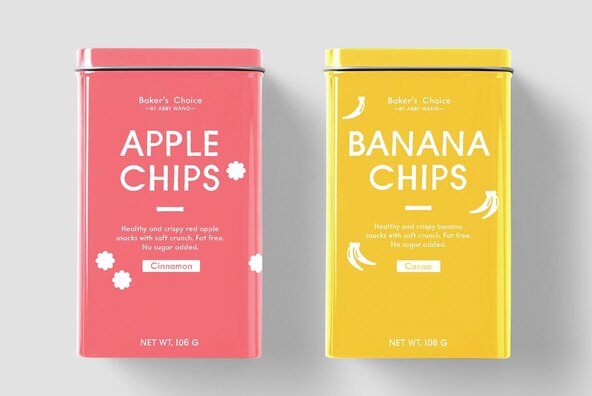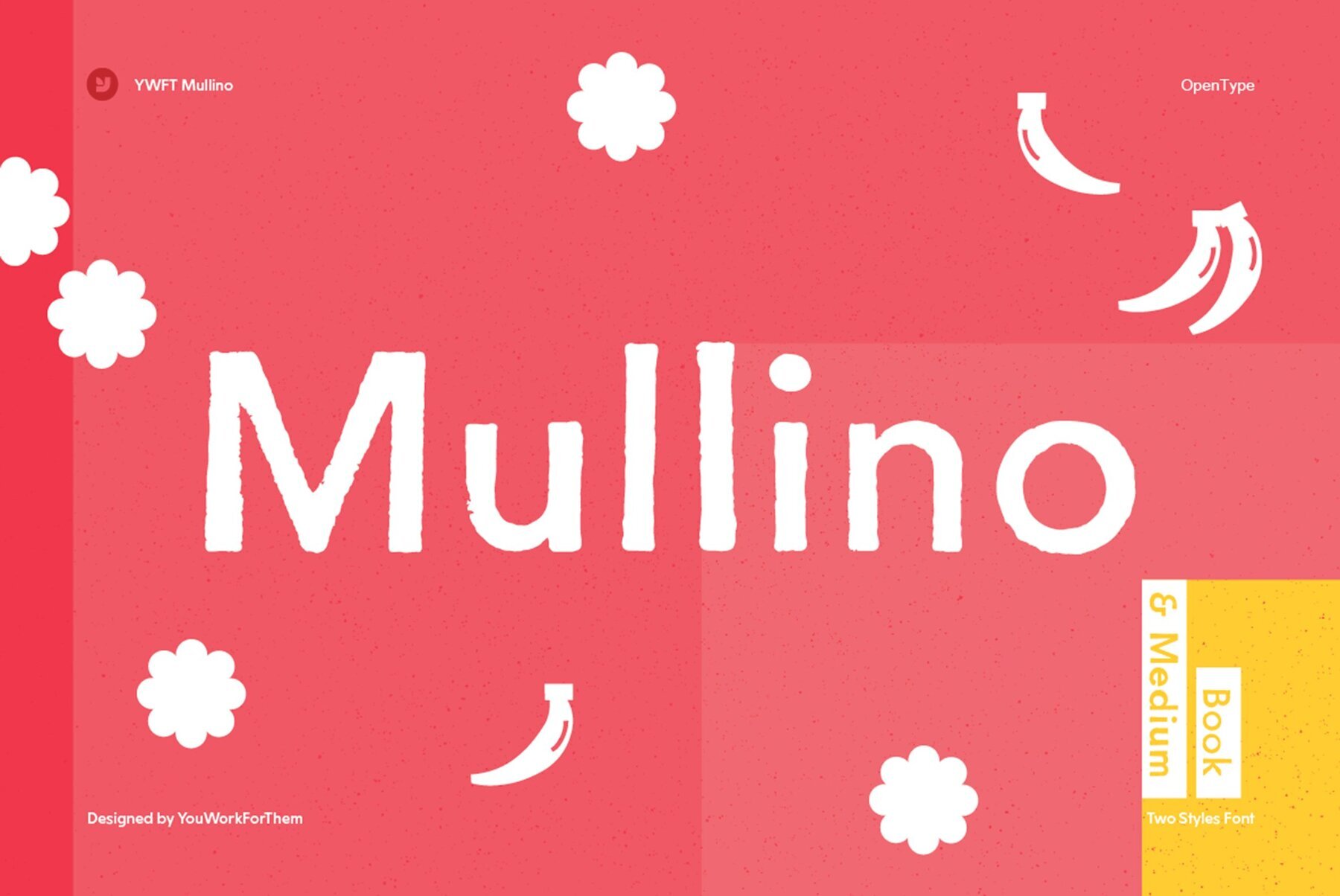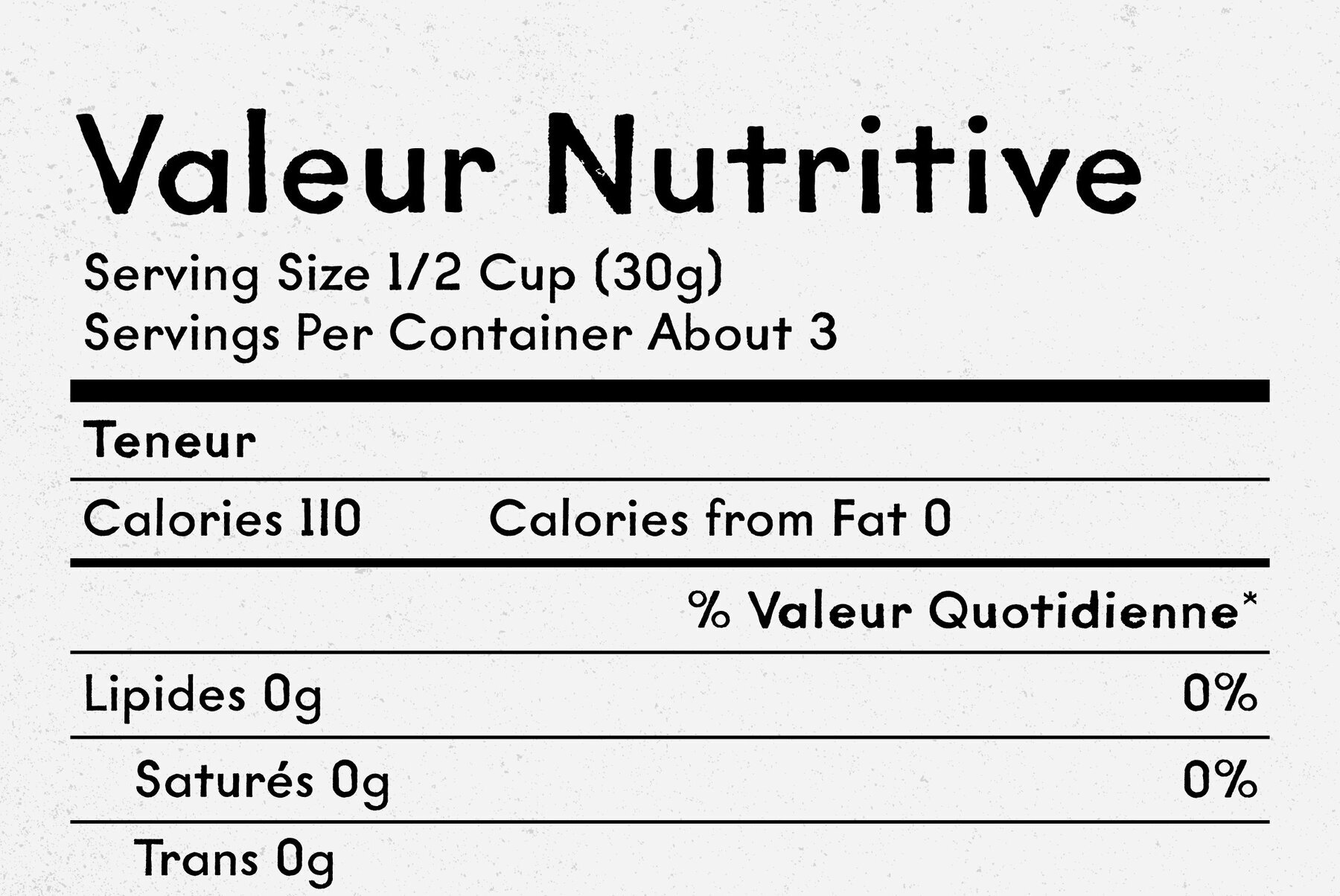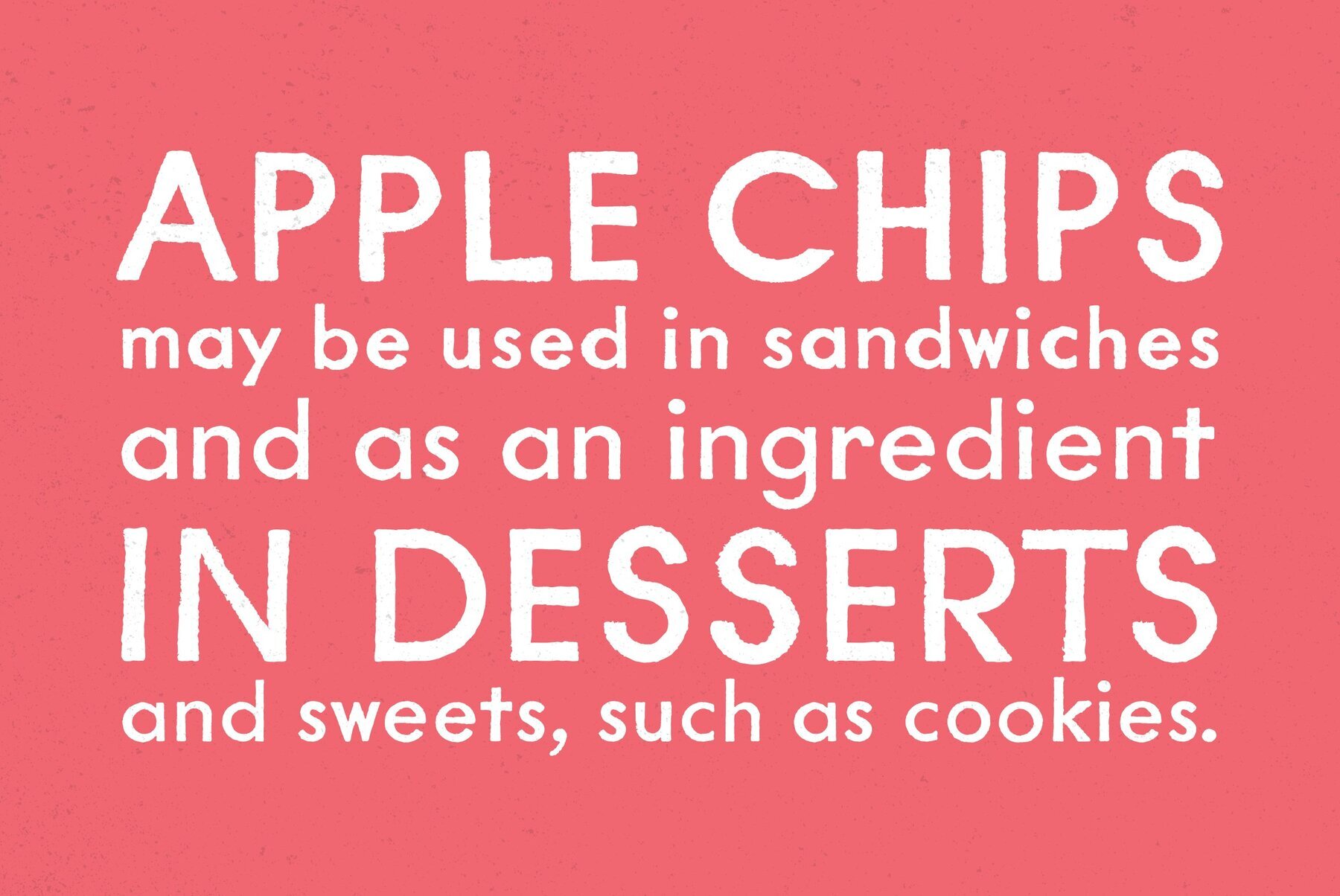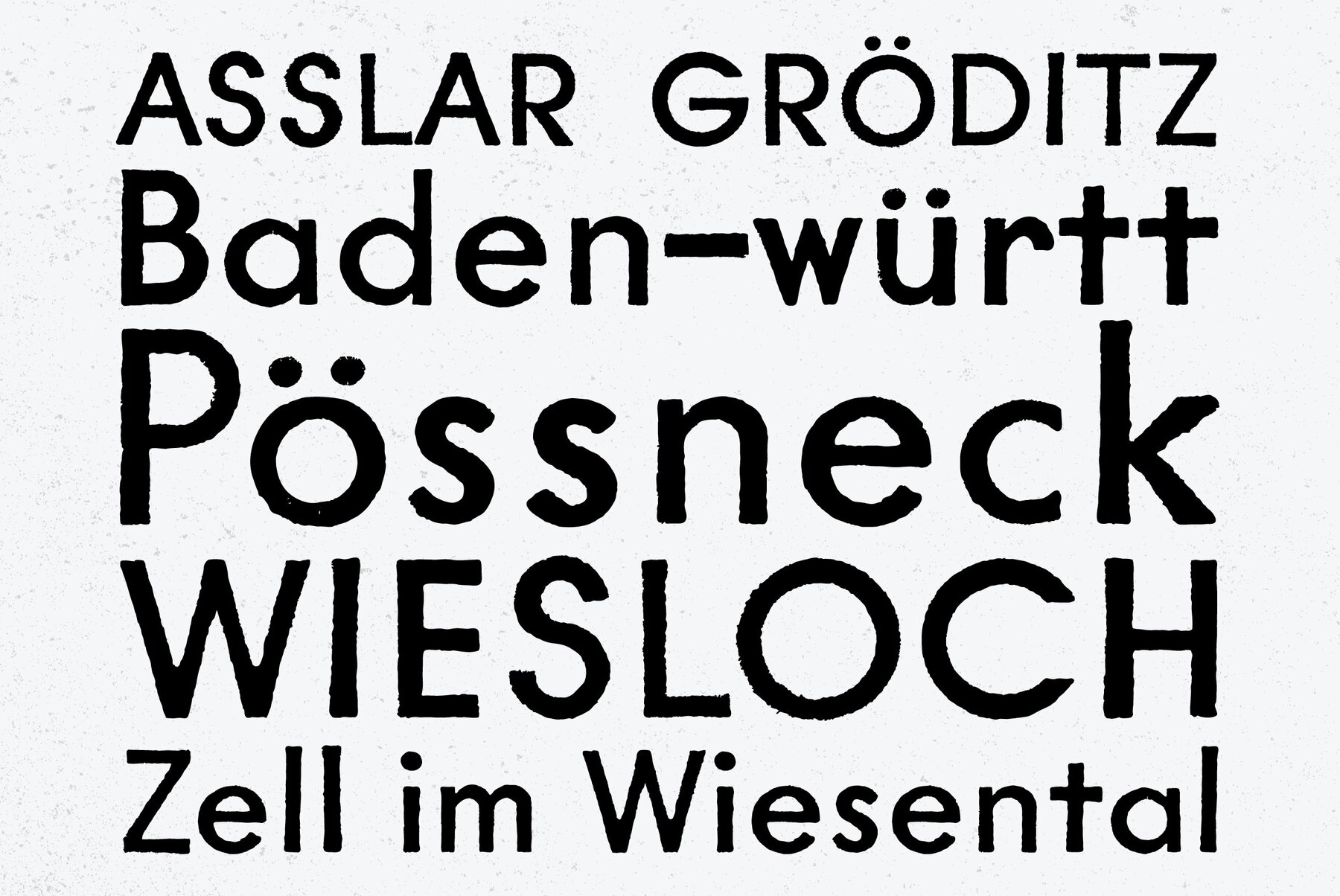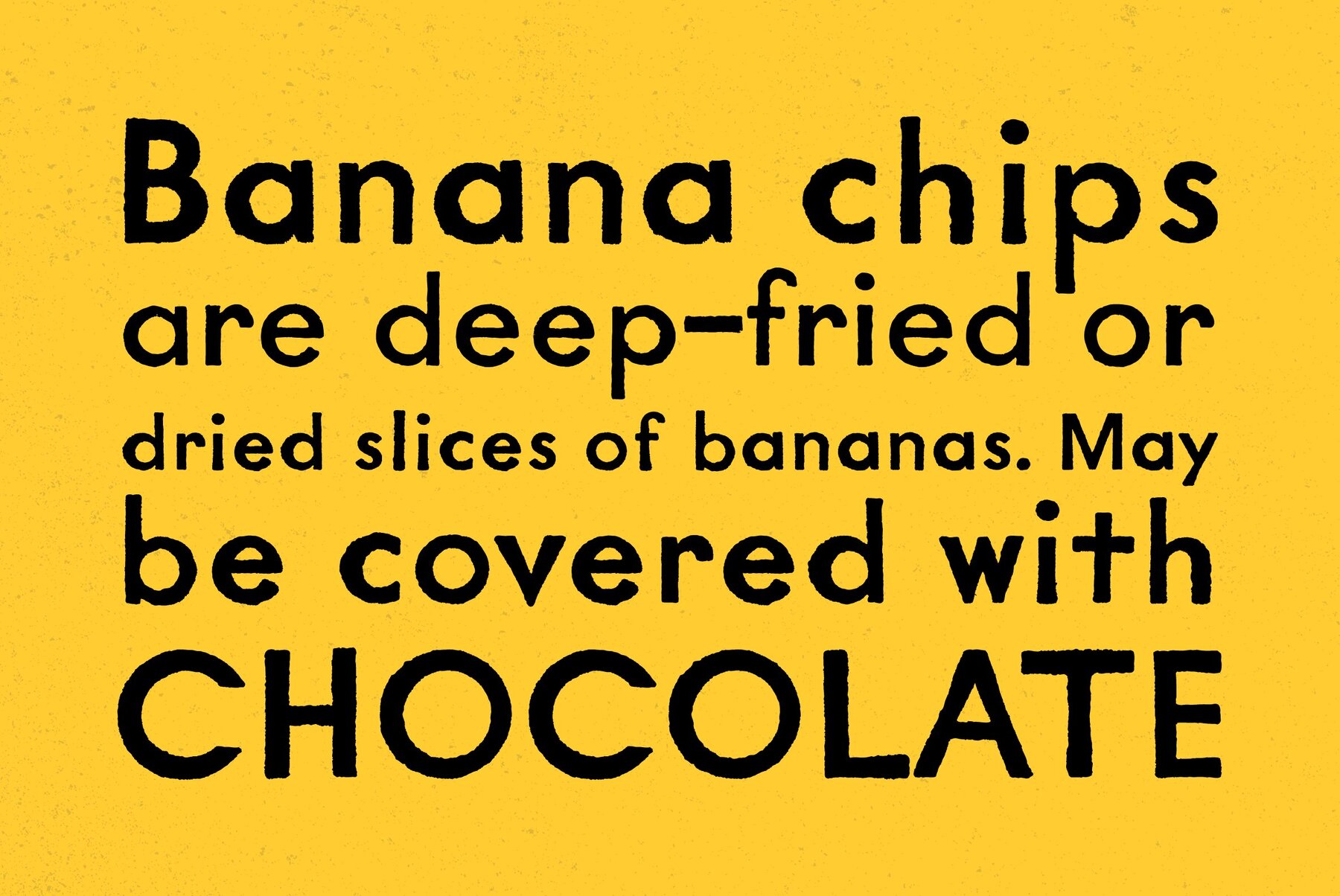
YWFT Mullino
Foundry: YouWorkForThem
Slightly distressed but possessing of serious underlying power, YWFT Mullino can be used as a display typeface or as a text face. This font brings huge diversity, beginning with the fact that there are two styles (Book and Medium) and plenty of alternate options. The Medium weight also contains the option to select misprinted letters, which results in extra typographic designs among other surprises. Be sure to explore the full range of YWFT Mullino in your design application. Designed exclusively by Michael Cina and YouWorkForThem.